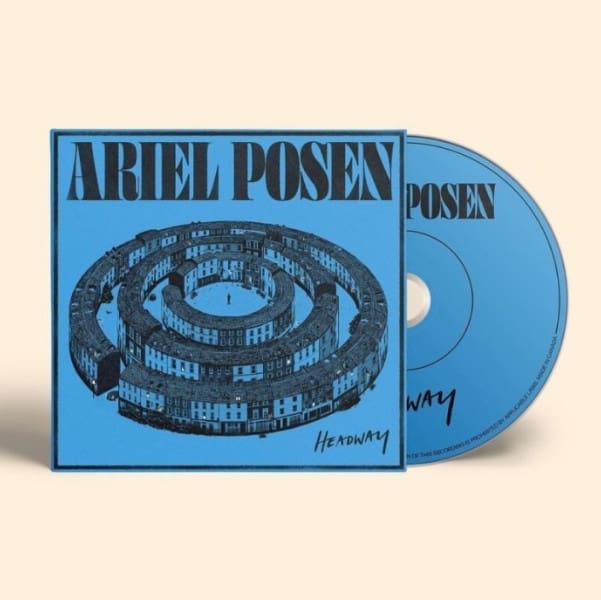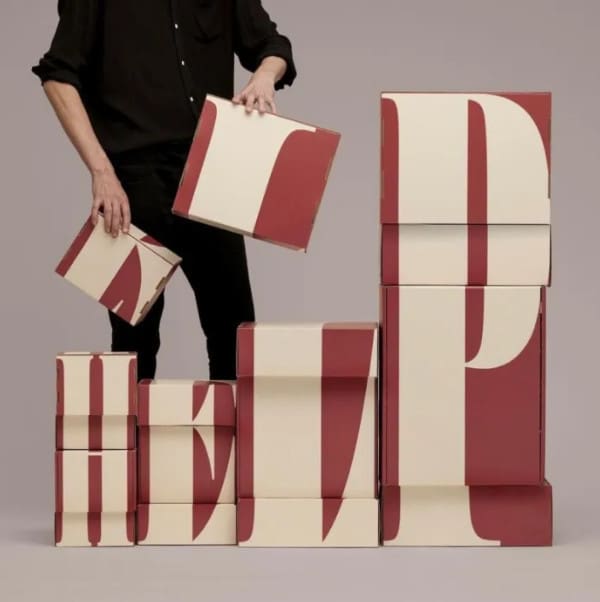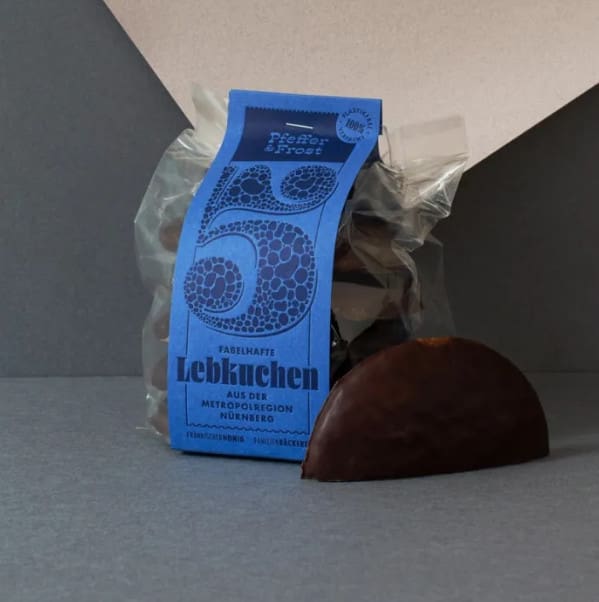
Fatface Complete Font Family
Fatface Complete Font Family, This serif font is stylish and sophisticated. It has a classic feel with thin strokes, sharp angles, and elegant curves. It is perfect for any project looking to add a touch of class. This font is PUA encoded which means you can access all glyphs and swashes effortlessly!
Beginning in the (early) 1800s, the Fann Street foundry in London produced a few designs in the brand new genre of “fatfaces.” They were intended for short words to be printed HUGE, and for this purpose, they worked quite well! In the 1970s, everything old was new again, but this time the exaggerated proportions of the era infected the x-heights of many well-trodden styles. Weight was pushed to new extremes. Negative space in and around letters shrank to minuscule specs of white.
Fatface Complete Font A great deal of type design revolves around making positive space consistent—for instance making sure all your verticals are exactly 90 units wide. But as type gets into the bold, black, and ultra weights, it becomes more necessary to make sure that your negative spaces are as consistent as possible. This allows an even texture where no one letter or pocket of whitespace stands out more than any other.